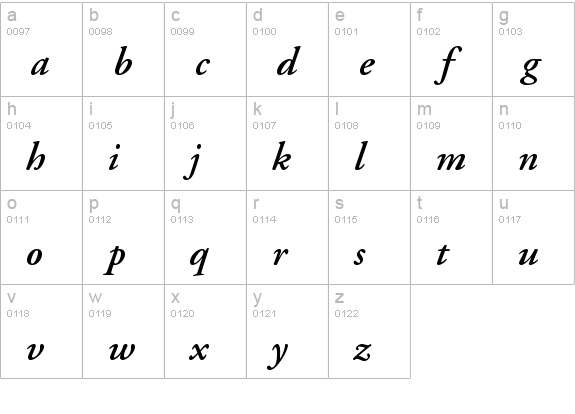
Adobe Garamond Semibold Italic Oldstyle Figures is a classic and elegant typeface that exudes sophistication and charm. The semibold weight adds a touch of boldness to the graceful Garamond design, while the italic style brings a sense of dynamic movement to the text. The use of oldstyle figures gives the font a timeless and traditional look, perfect for adding a touch of refinement to any project. This versatile font is ideal for a wide range of design applications, from editorial layouts to branding and packaging. Whether you're working on a book cover, a magazine spread, or a logo design, Adobe Garamond Semibold Italic Oldstyle Figures will add a touch of class and sophistication to your work. Best of all, this exquisite font is freely available to download at FontsMarket.com. So why wait? Give your projects a touch of elegance with Adobe Garamond Semibold Italic Oldstyle Figures today!